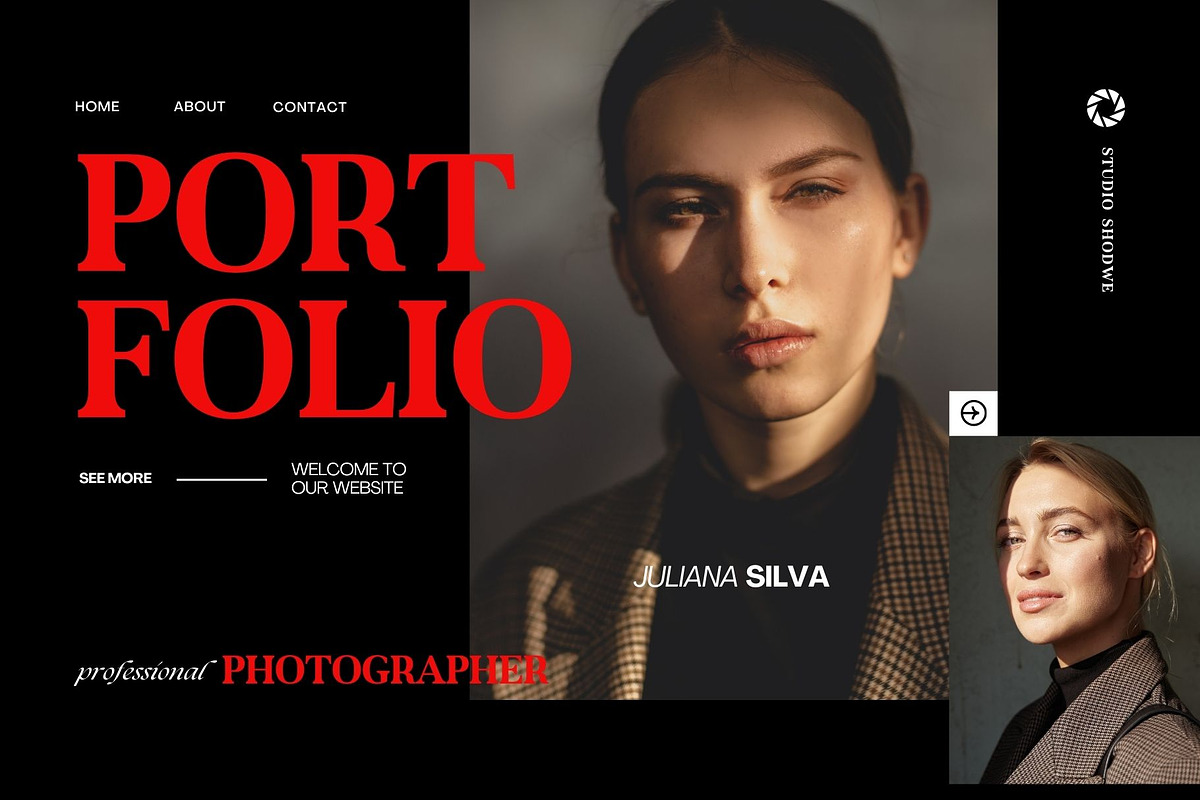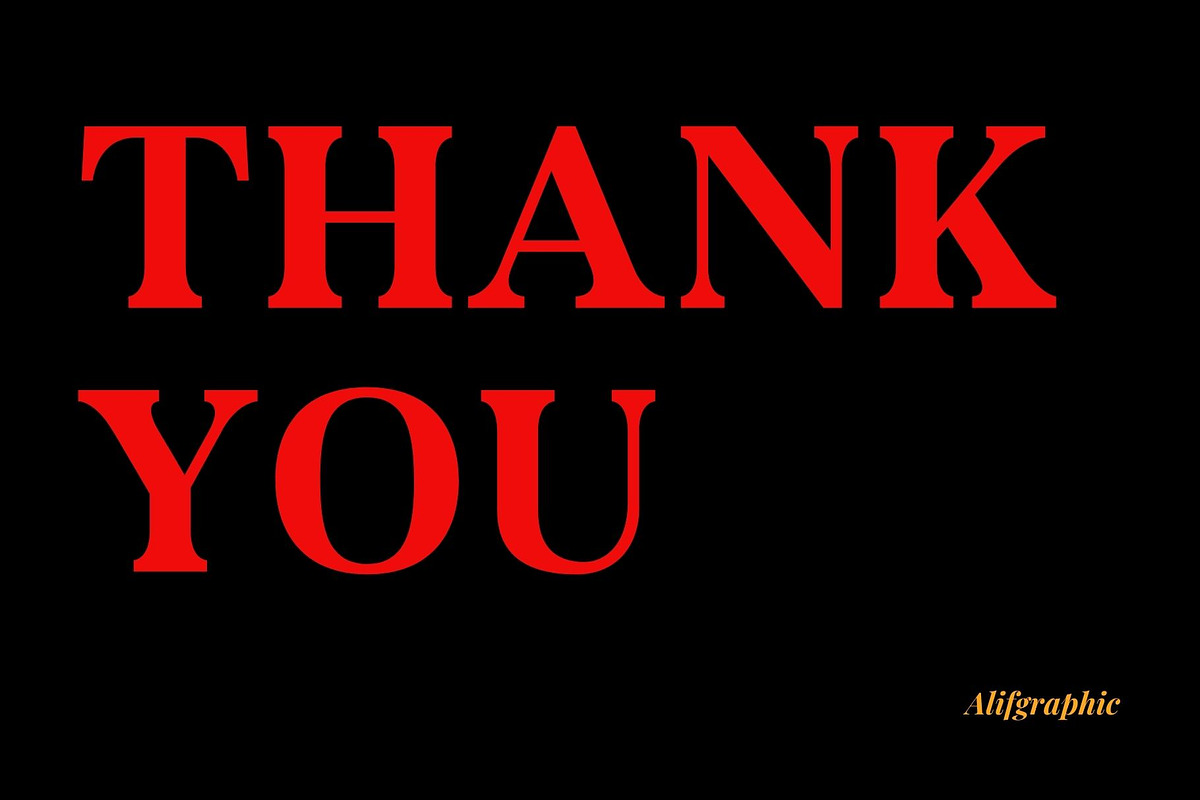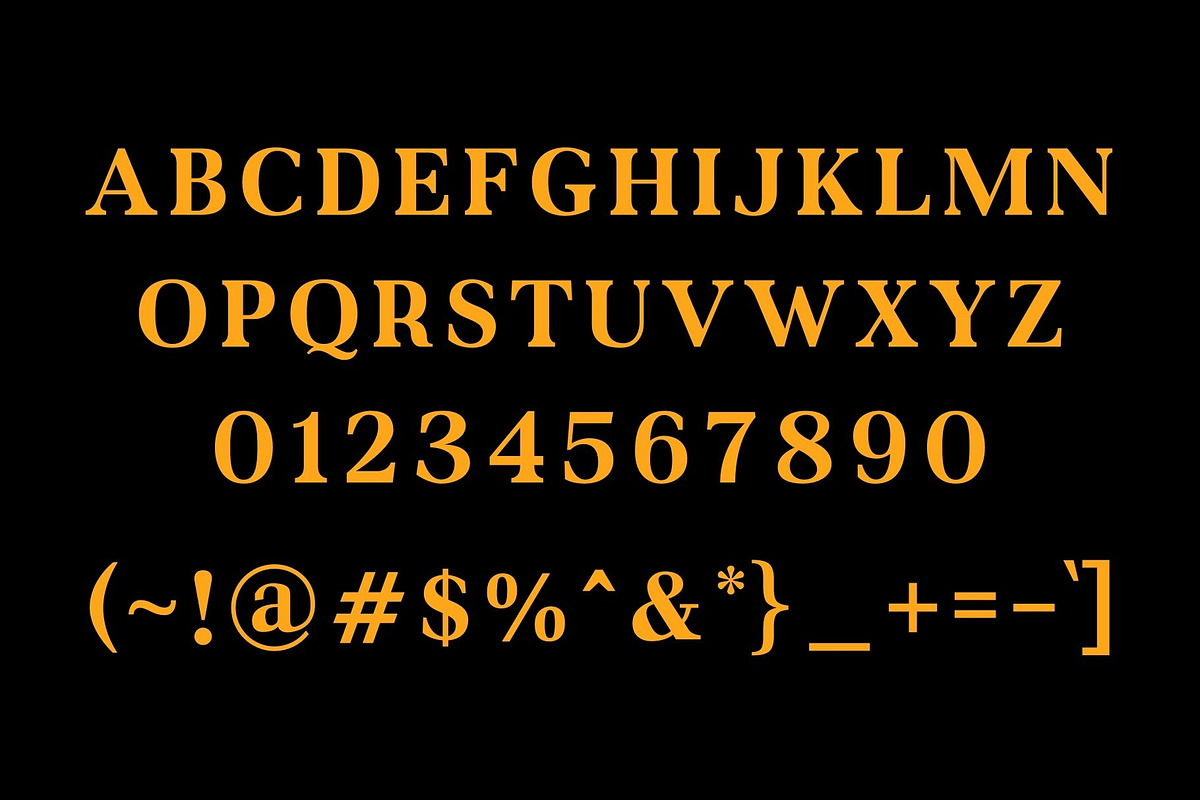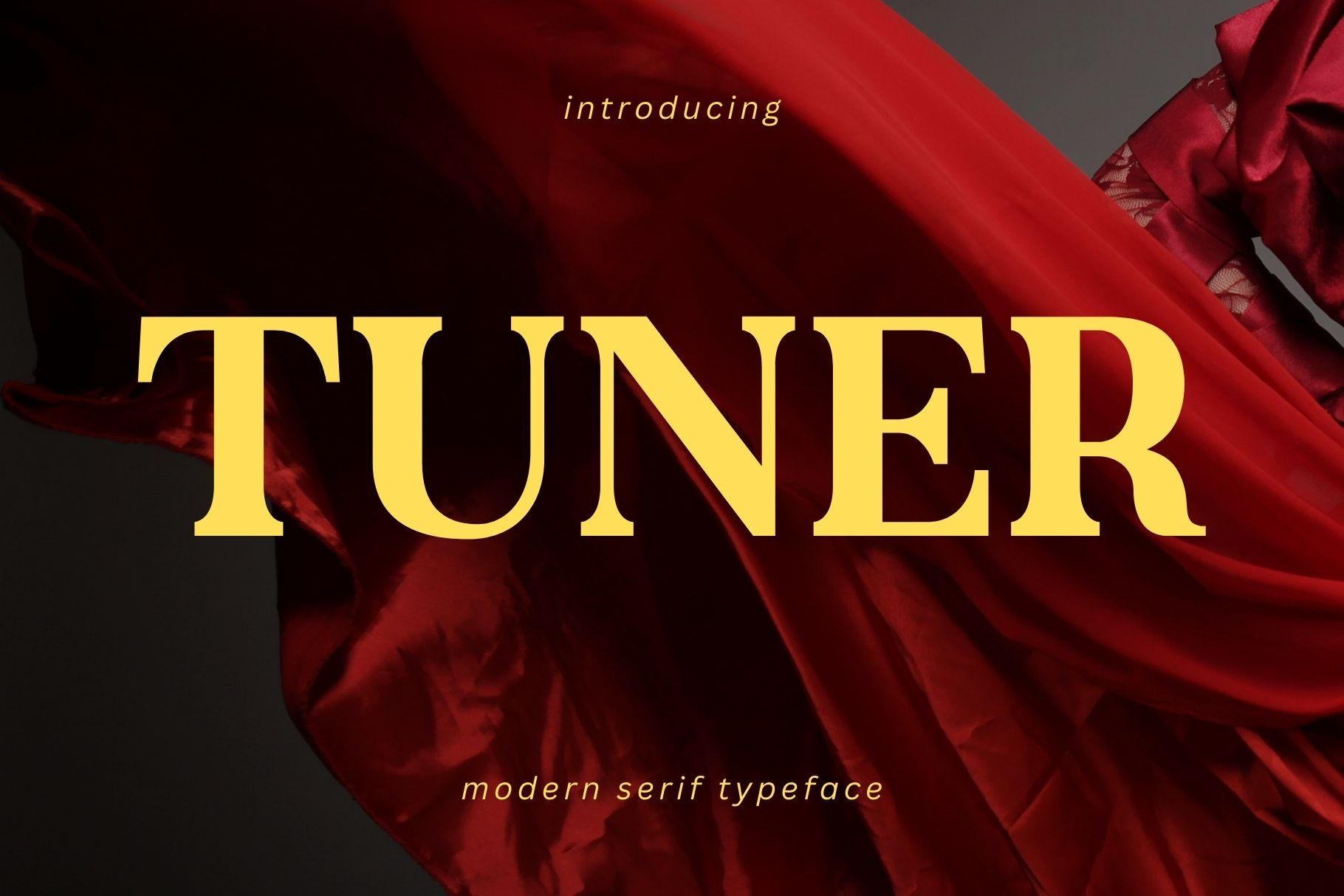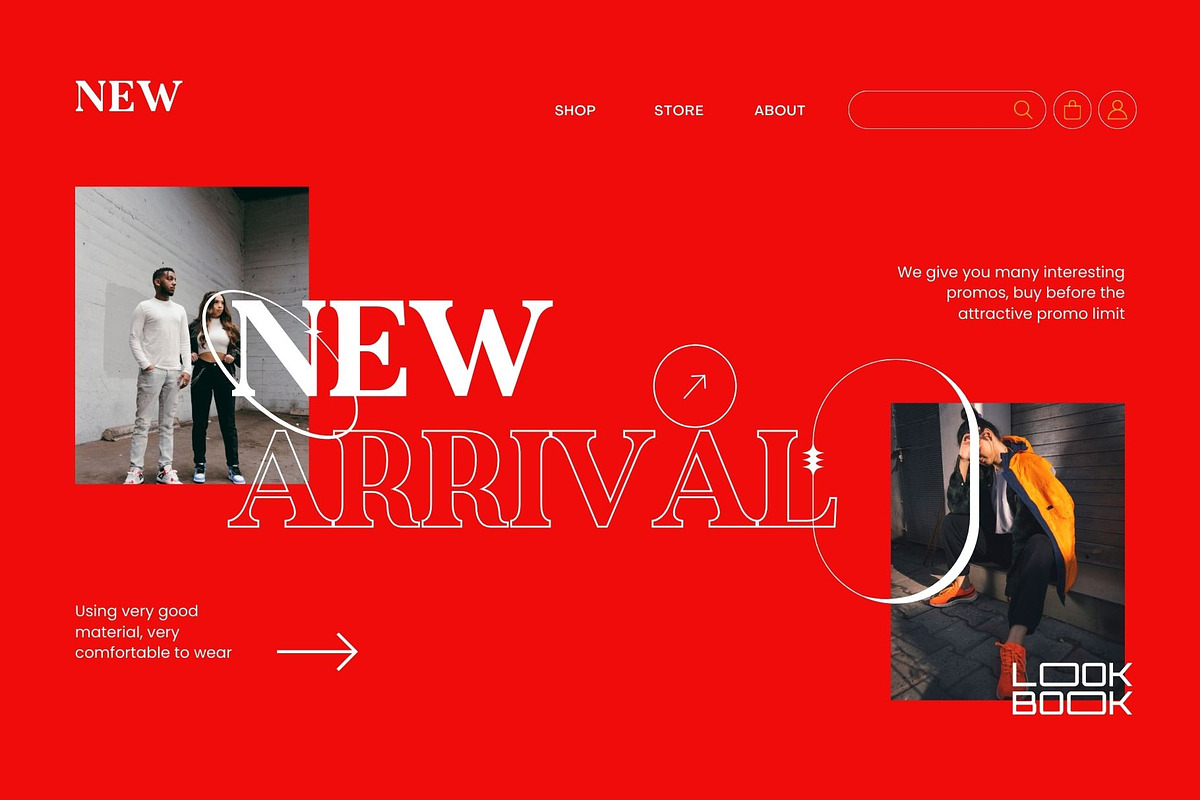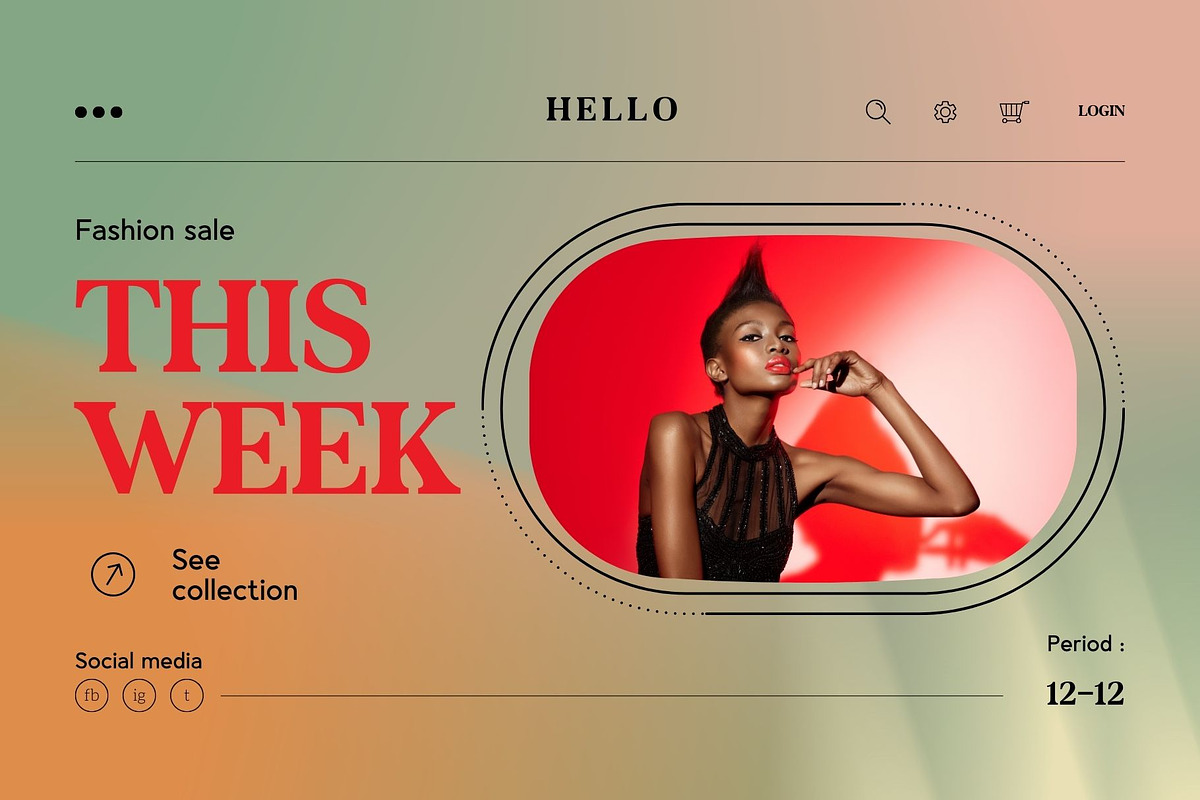
Tuner - Modern Serif Typeface
Introducing 'Tuner' Font:
Tuner is a unique and very elegant font for branding and logo designs Elegant serif typeface combined with a classy and modern style. This type of font is very suitable for your various needs such as branding projects, logos, wedding designs, social media posts, advertisements, product packaging, product designs, labels, photography, watermarks, invitations, stationery, and any project, created with high level of readability. you will not be disappointed if you buy this font!!
Ideal for:
- Modern Designs
- Beauty and Fashion
- Advertising Campaigns
- Web Design Projects
- Ready for Creative Expression
- Immaculately Crafted Letters